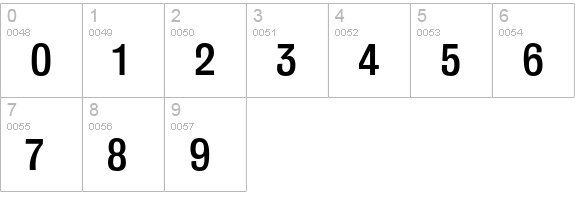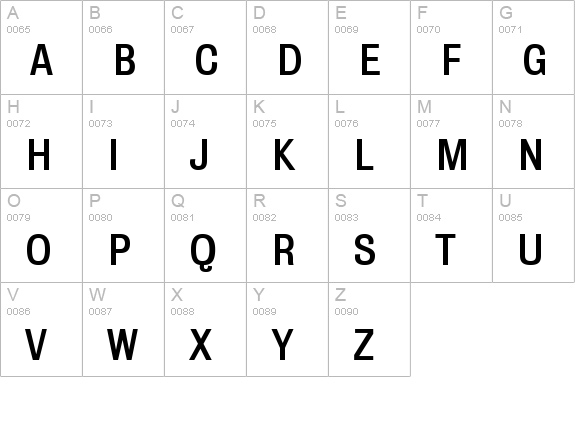
BureauGrotFiveThree Font Details
BureauGrotFiveThree font is a modern and stylish typeface that exudes sophistication and elegance. With its clean lines and bold design, this font is perfect for making a statement in any project. The unique geometric shapes and sharp angles of BureauGrotFiveThree font add a touch of contemporary flair to any design. One of the best things about BureauGrotFiveThree font is that it is completely free to download. You can easily access this stunning font at FontsMarket.com and enhance your creative projects with its sleek and professional look. Whether you're designing a logo, creating a poster, or crafting a website, BureauGrotFiveThree font is sure to elevate your work to the next level. Download this exceptional font today and let your creativity shine!